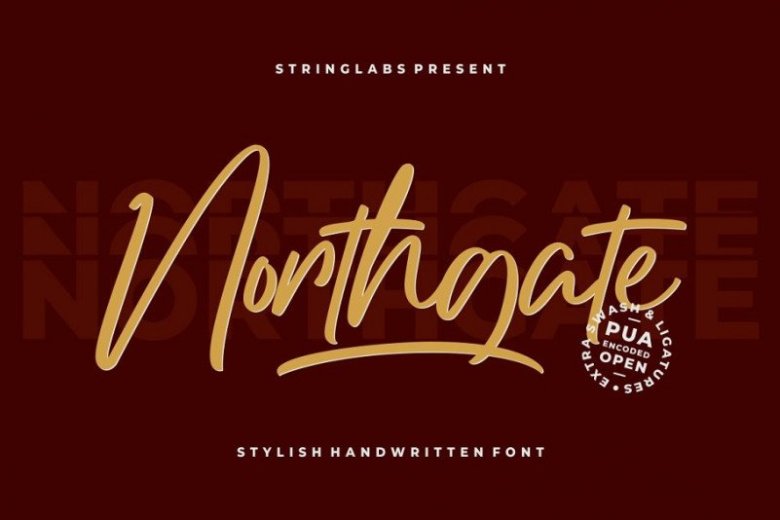
Northgate Script Font
This is a stylish handwritten font, a work that is purely a result of handwriting, has a natural characteristic. Introducing Northgate Font. It’s designed and shared by StringLabs. It’s made with a blend of trendy and stylish styles. This font was also created carefully. We made this font especially for those of you who like stylish script fonts. Northgate has an adventure, casual and creative concept.